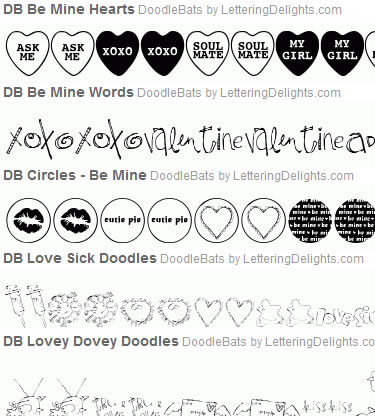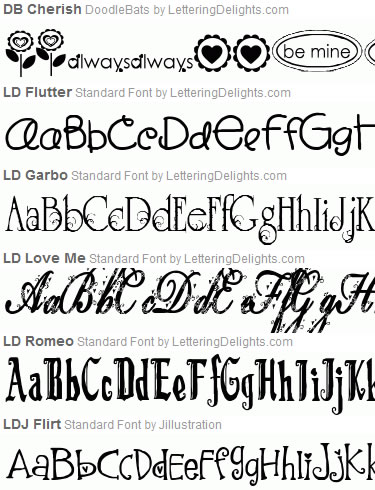
Happy Valentine's Day!
Jillustration Fever Bundle |
designs
will have you back on track in no time. Each alphabet includes
letters, numbers and punctuation, and Journaling Delight
clip art sets include a border, words and clip art images.
Together you can create your own unique message of love
and cheer.
This Love Sick Card Starter kit (printable page) will be
available only with a bundle purchase.
Be Mine DoodleBat Bundle |
Say I love
you in countless ways with the new Be
Mine DoodleBat Bundle.
Five new DoodleBat designs
overflow with love and affection in words, symbols and
one-of-a-kind designs. As easy to use as a font, Doodlebats
are the simplest way to make
Valentine greetings
for all of your loved ones. Check out these great ideas......
How do I love thee? Let me
count the ways....
In the Cherish
Font Bundle there are six all new ways to
say I love you. Hearts and flowers abound in DB
Cherish.
Tiny hearts accent big messages in LDJ
Flirt and LD
Love Me. Share love and affection with the classic elegance of
LD
Romeo and LD
Garbo or the whimsical curls in LD
Flutter.
Say I love you with all six!
Cheryl's Sweethearts Bundle |
each available in an alphabet,
Journaling
Delight clip art set and all new Valentine
card tags! Sweet and simple messages of love are clear in Annie
Be Mine, with a chunky pink dotted alphabet and matching
clip art with red heart accents and sweet stripes. Valentine
Angels share a message of romance with deep red hearts
and clip art with lace and button accents. Journaling Delight
clip art sets includes photo and title boxes, corners,
tags, adornments and a topper.